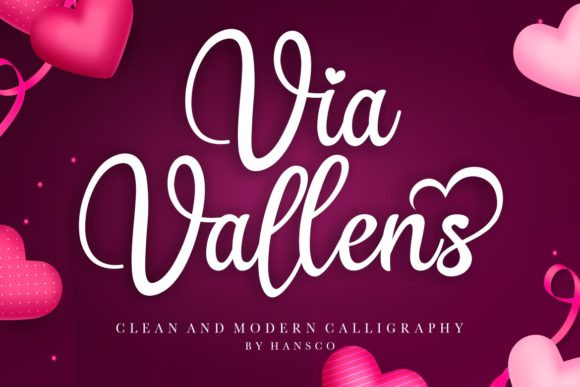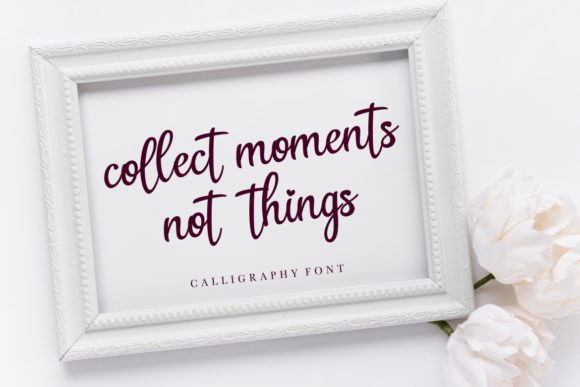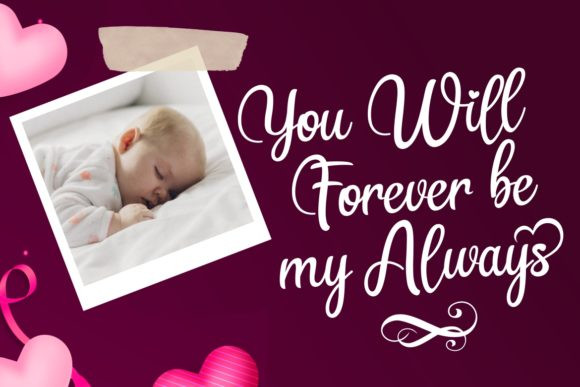
Via Vallens Font
Via Vallens is an elegant and stylish calligraphy font, carefully handcrafted to become a true favorite. It can be used for various purposes such as logos, wedding invitations, headings, t-shirts, letterhead, signage, labels, news, posters, badges and so much more. Via Vallens is PUA encoded which means you can access all of the glyphs and swashes with ease!